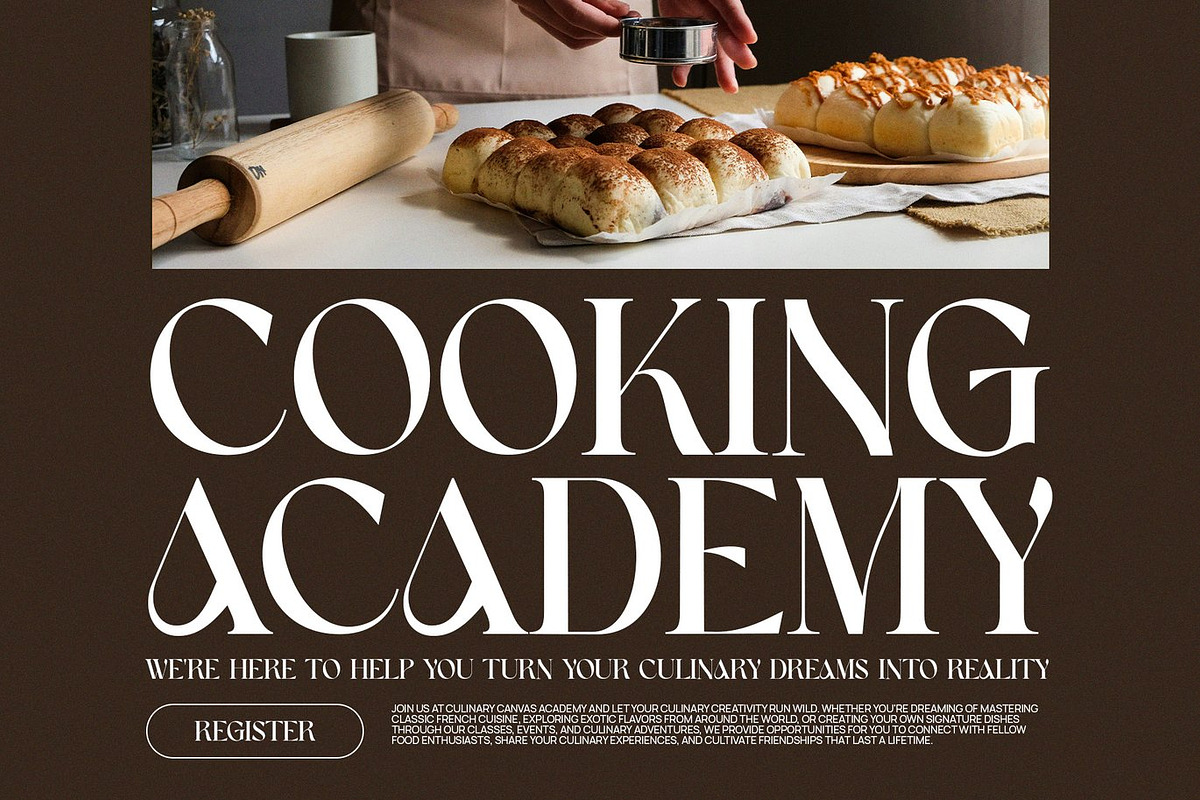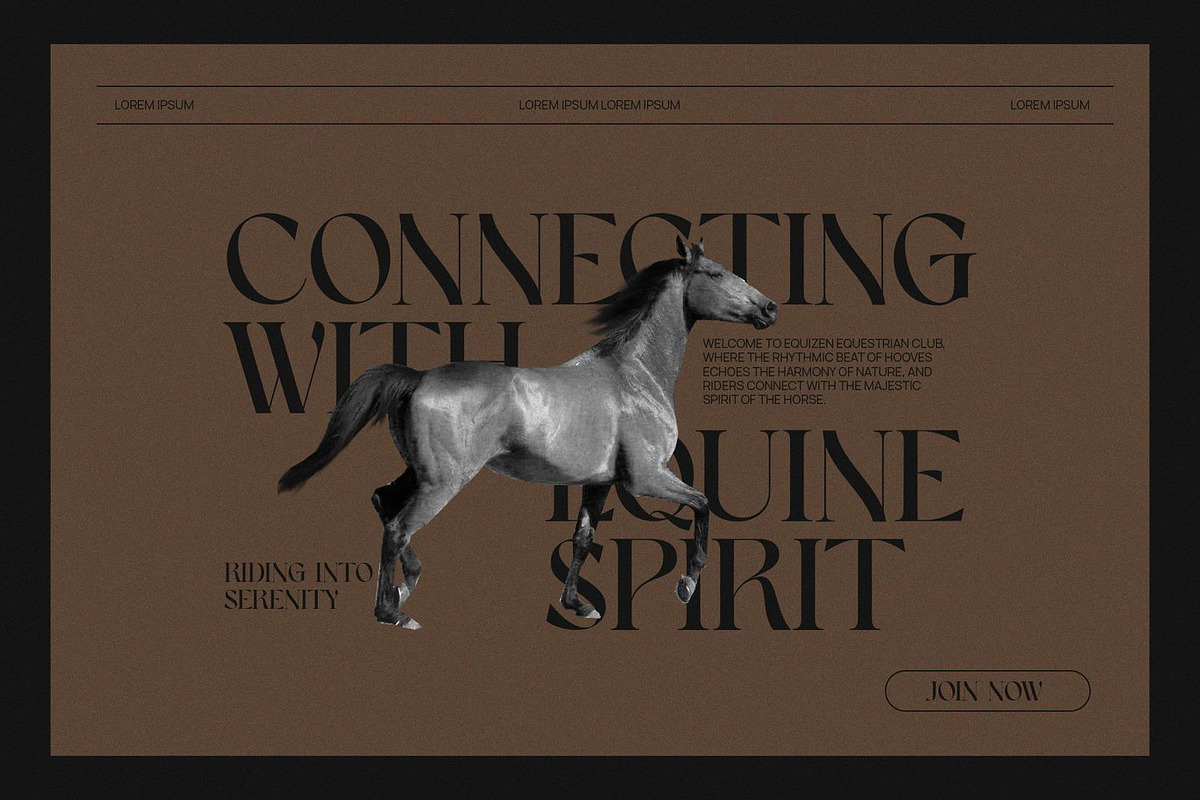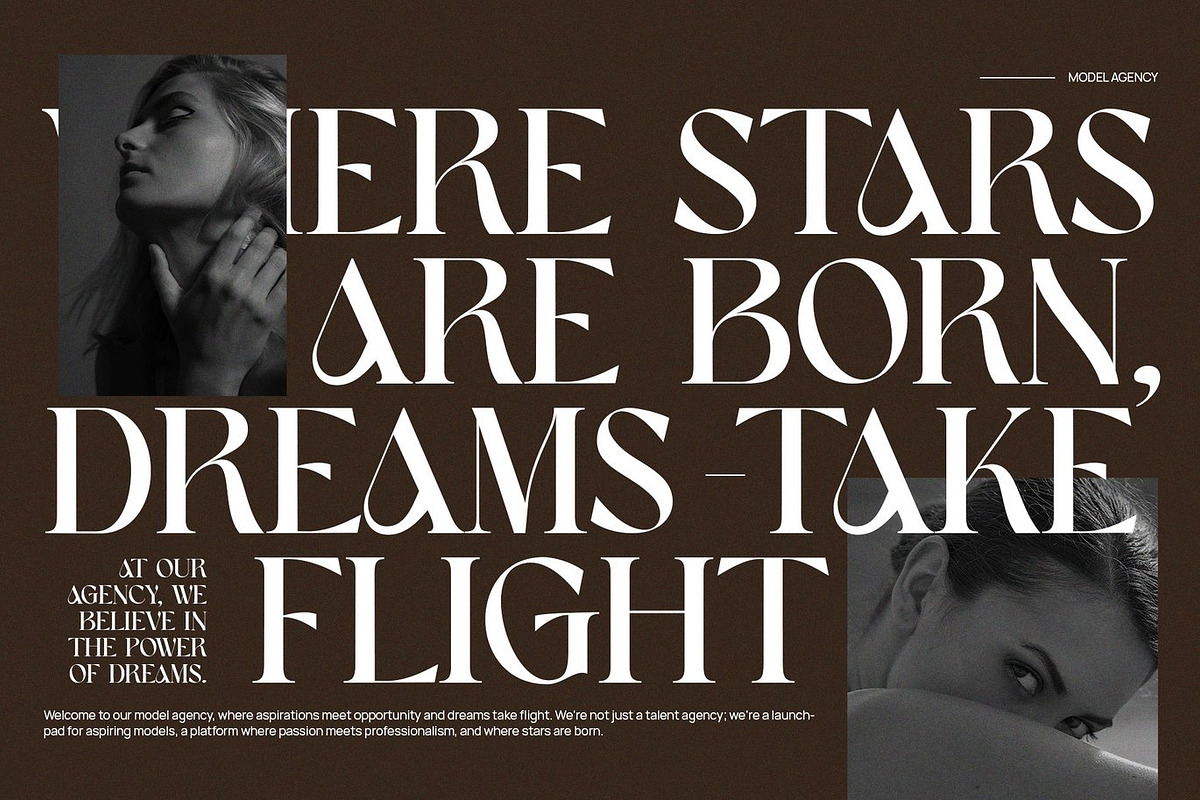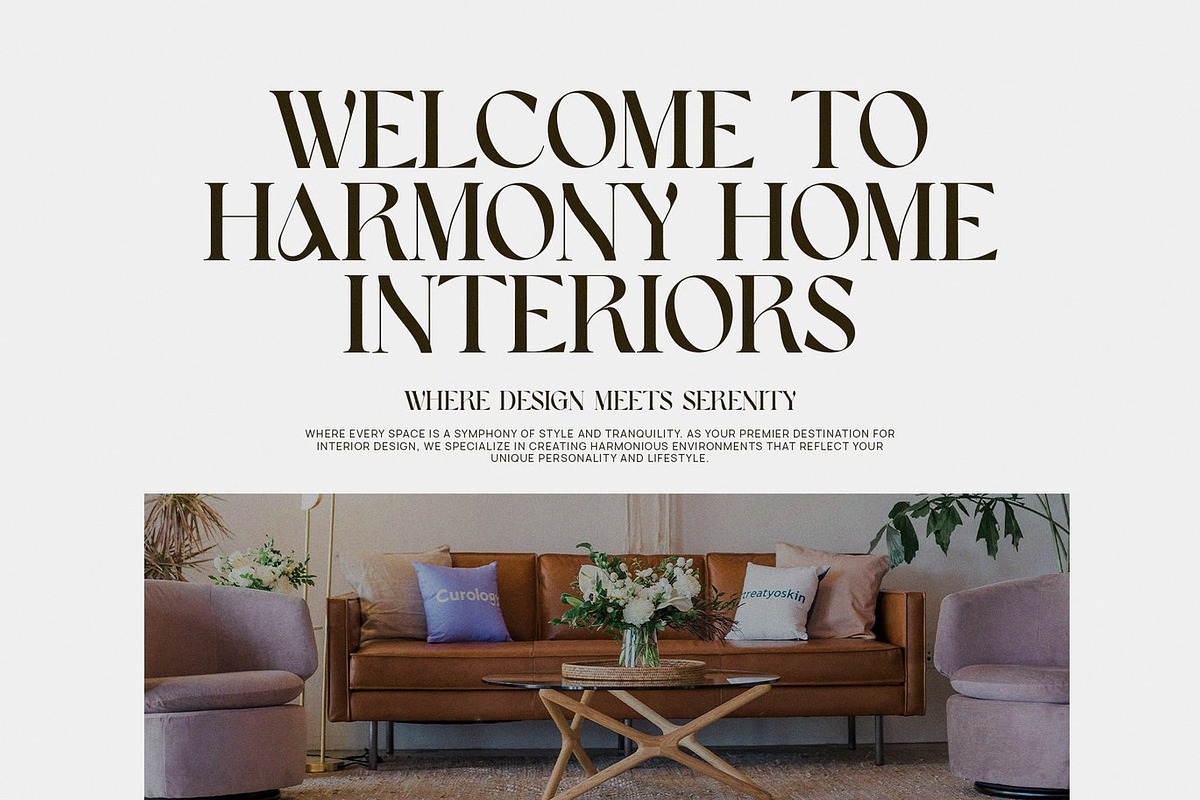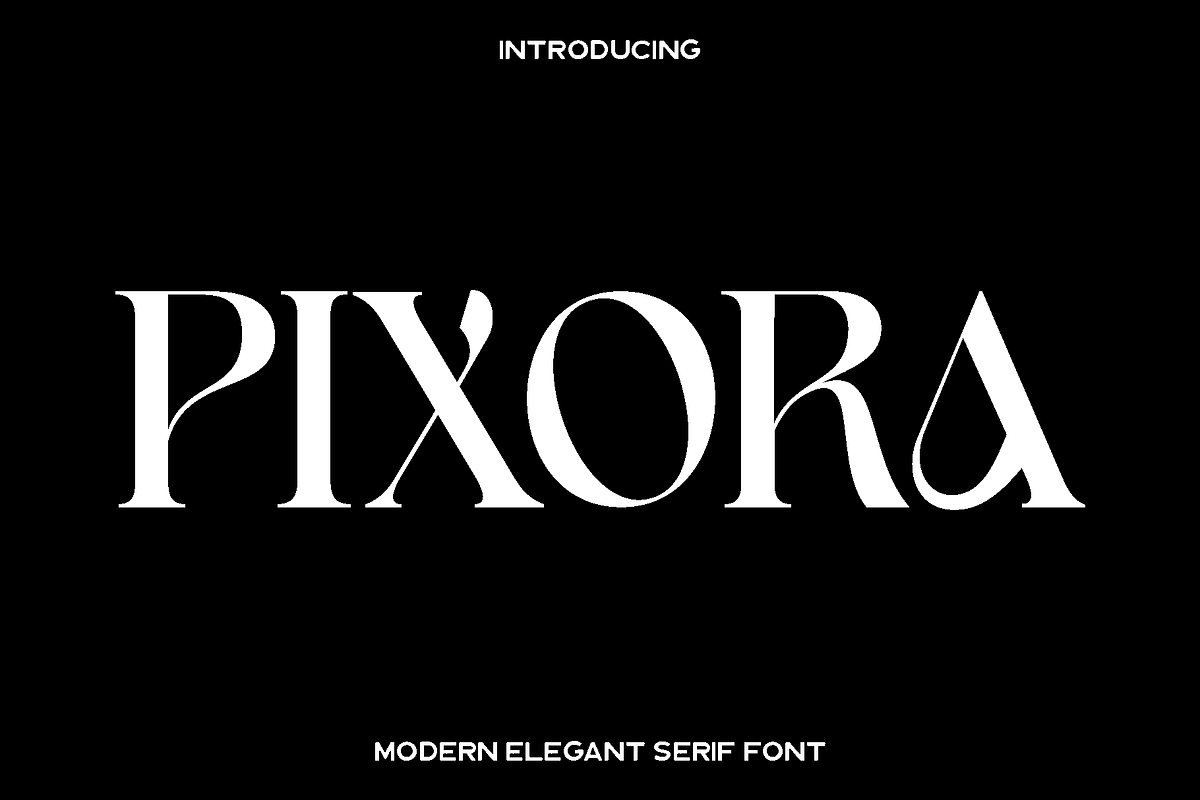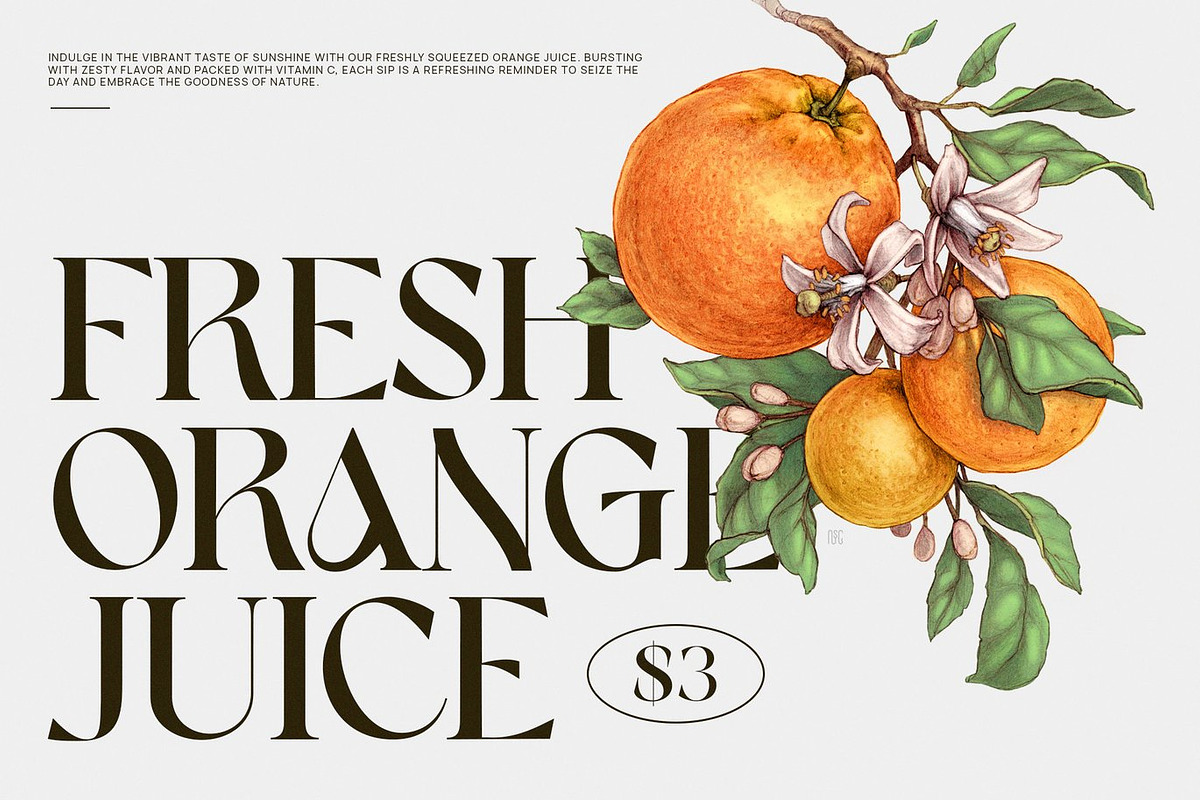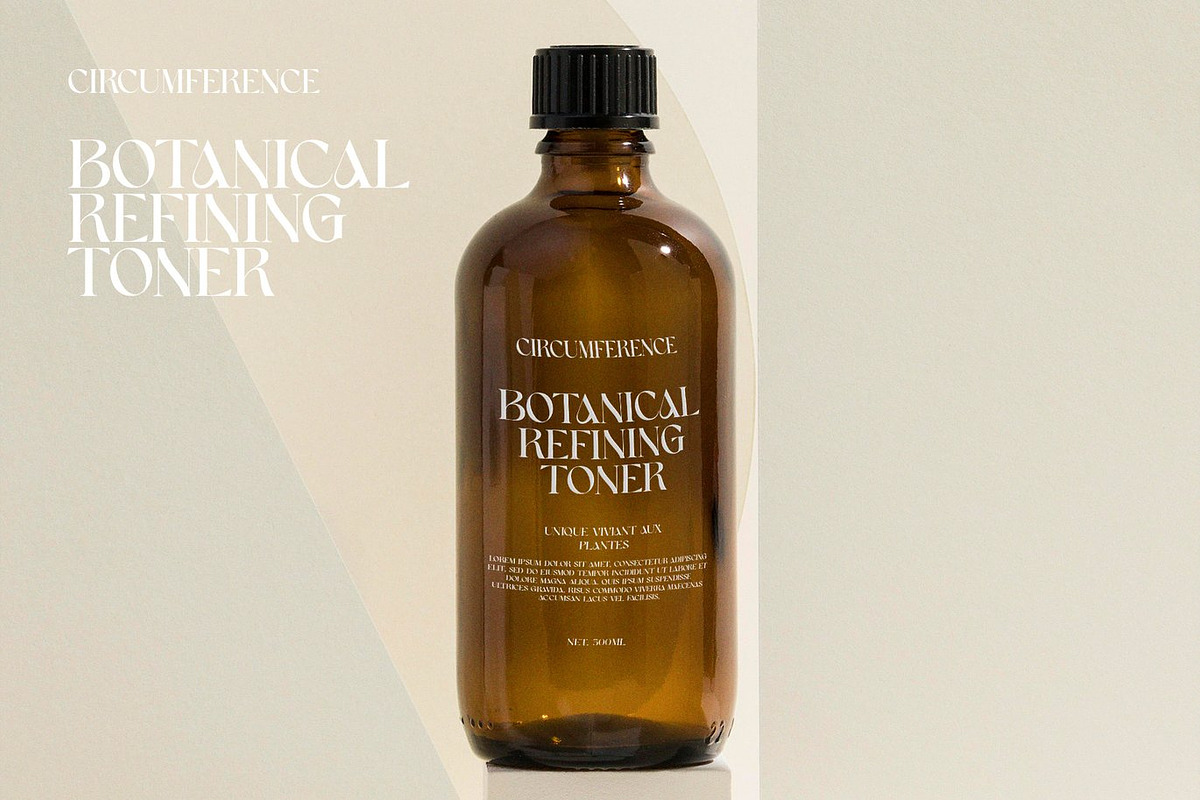
Pixora - Elegant Classy Serif
Pixora is a refined serif font created for designers who appreciate elegance, luxury, and timeless beauty in their work. Inspired by high end editorial typography and premium branding aesthetics, Pixora features graceful curves, balanced proportions, and polished letterforms that instantly elevate any design. Its sophisticated presence makes every word feel intentional, stylish, and visually captivating.
Crafted with clarity and luxury in mind, Pixora shines in branding projects, logo designs, packaging, social media content, advertising materials, and wedding stationery. Its elegant structure allows it to stand out in both bold headlines and subtle typographic elements, offering exceptional legibility across digital and print media. Whether you are creating fashion branding, photography watermarks, invitations, or editorial layouts, Pixora adds a touch of class that enhances your creative vision.
Pixora feels modern yet timeless, making it a reliable choice for designers seeking a premium serif typeface that can adapt to many styles. Its refined shapes bring professionalism and artistry together, ensuring your designs leave a strong and memorable impression.
• Accented characters for Western European languages